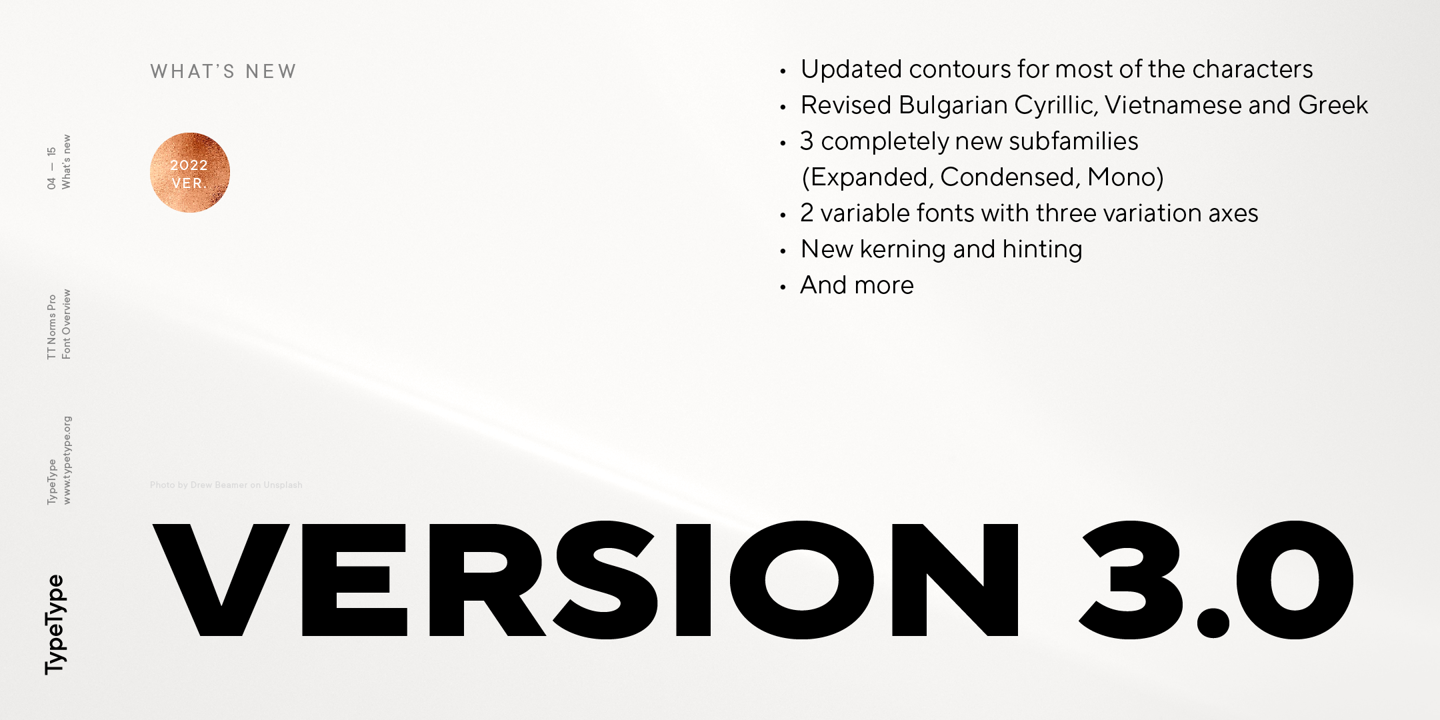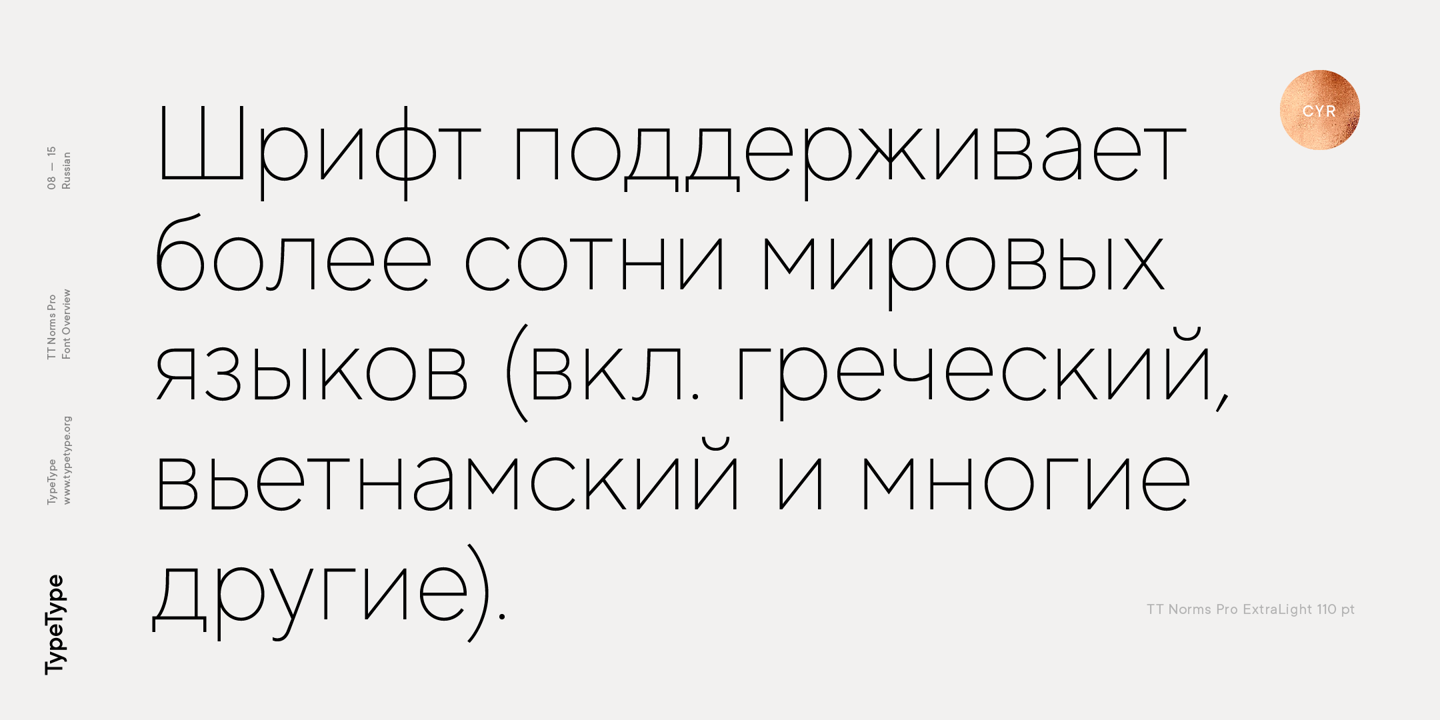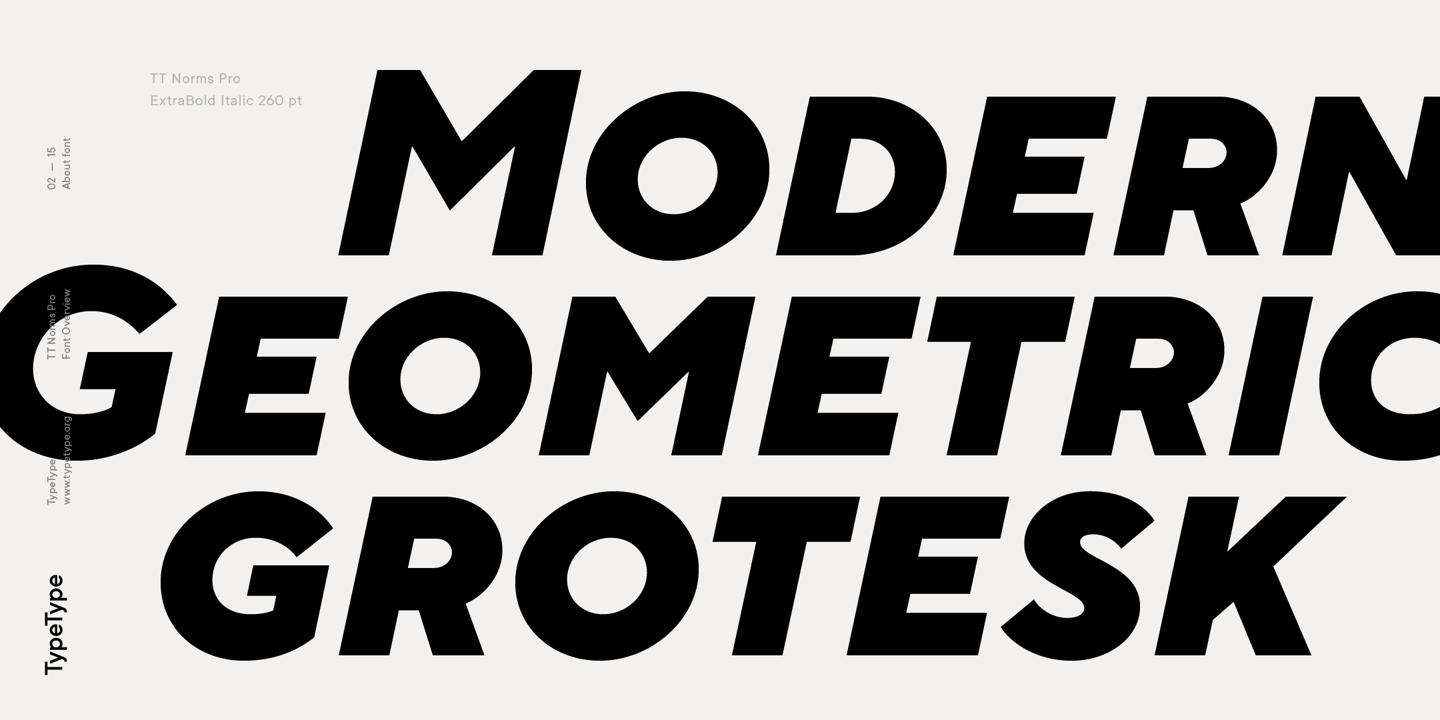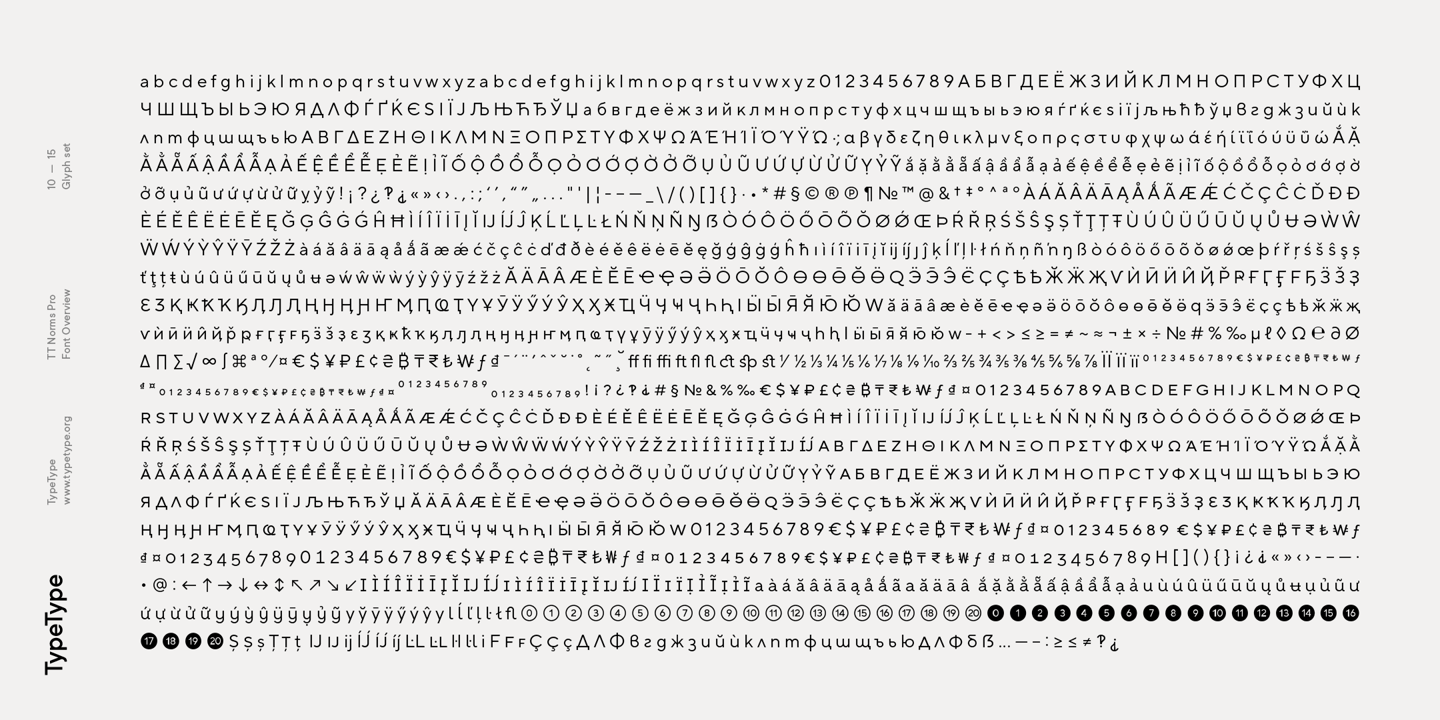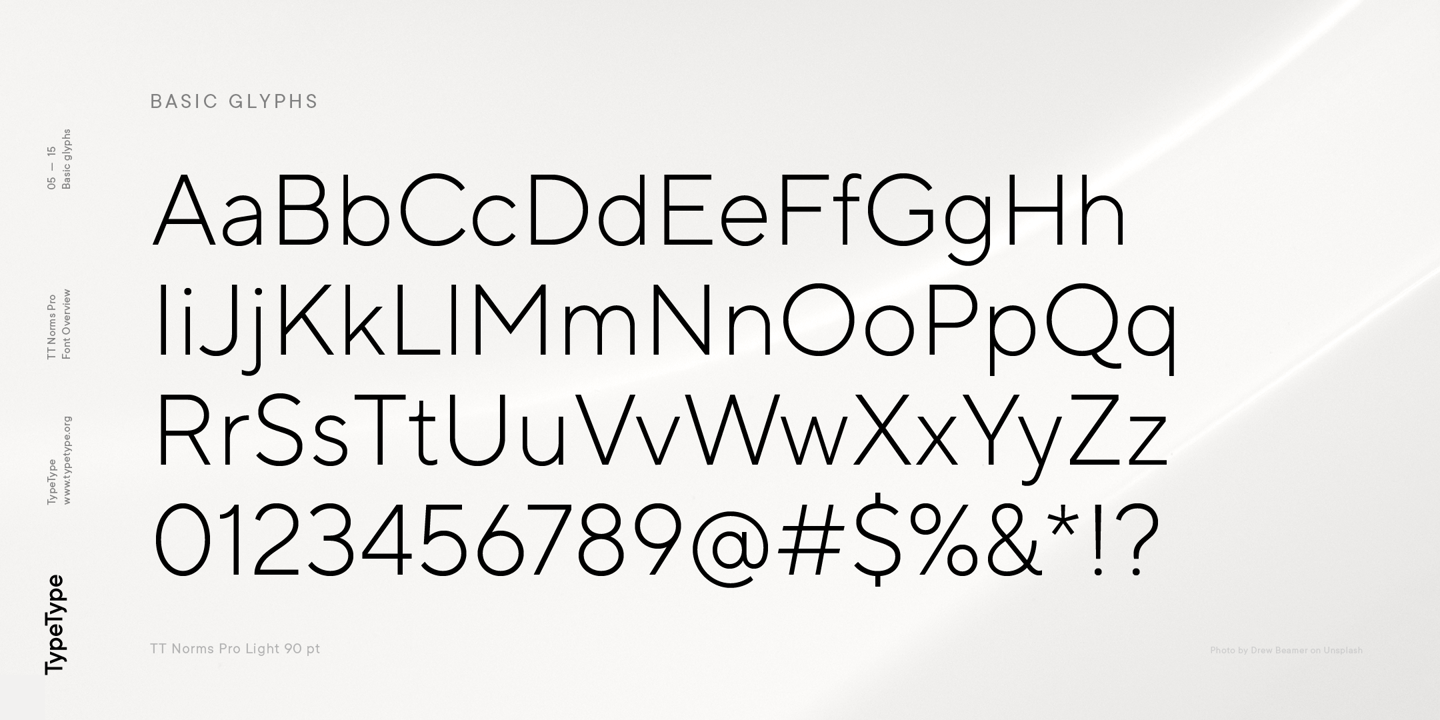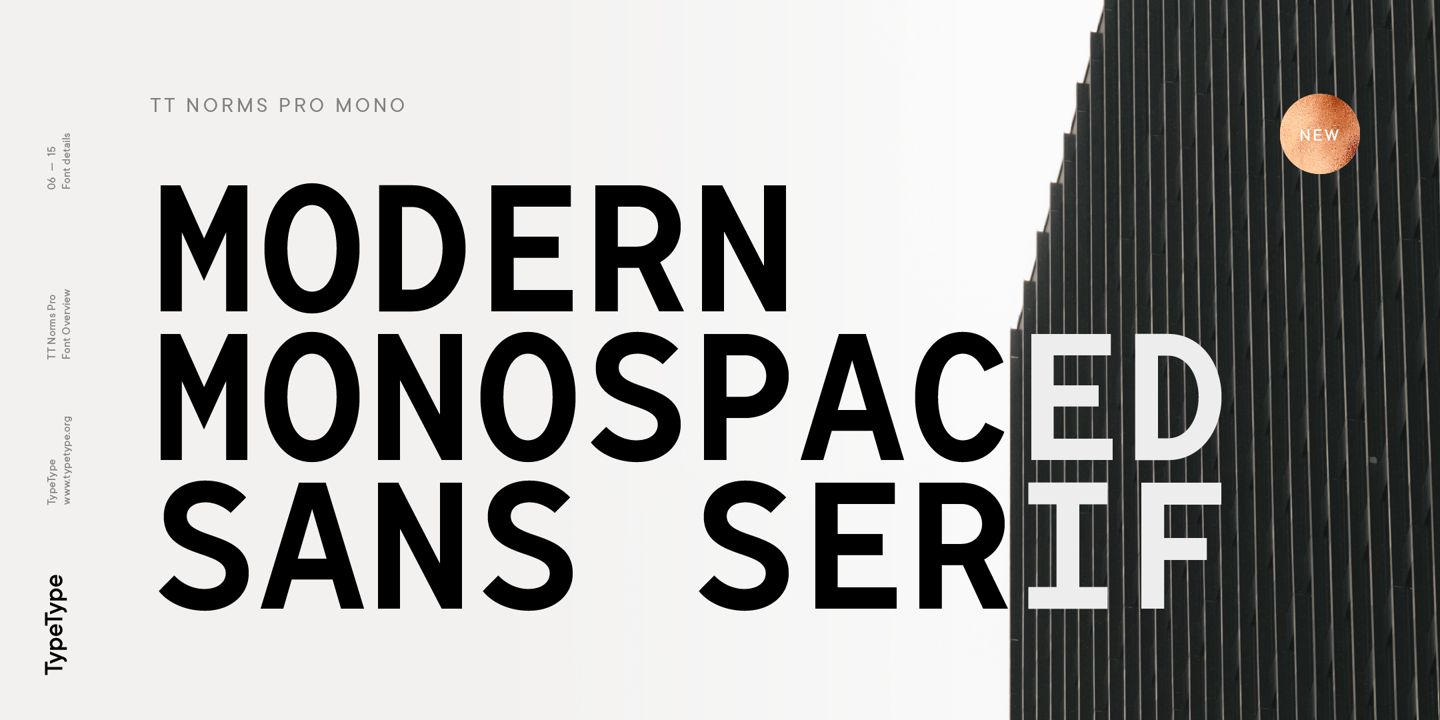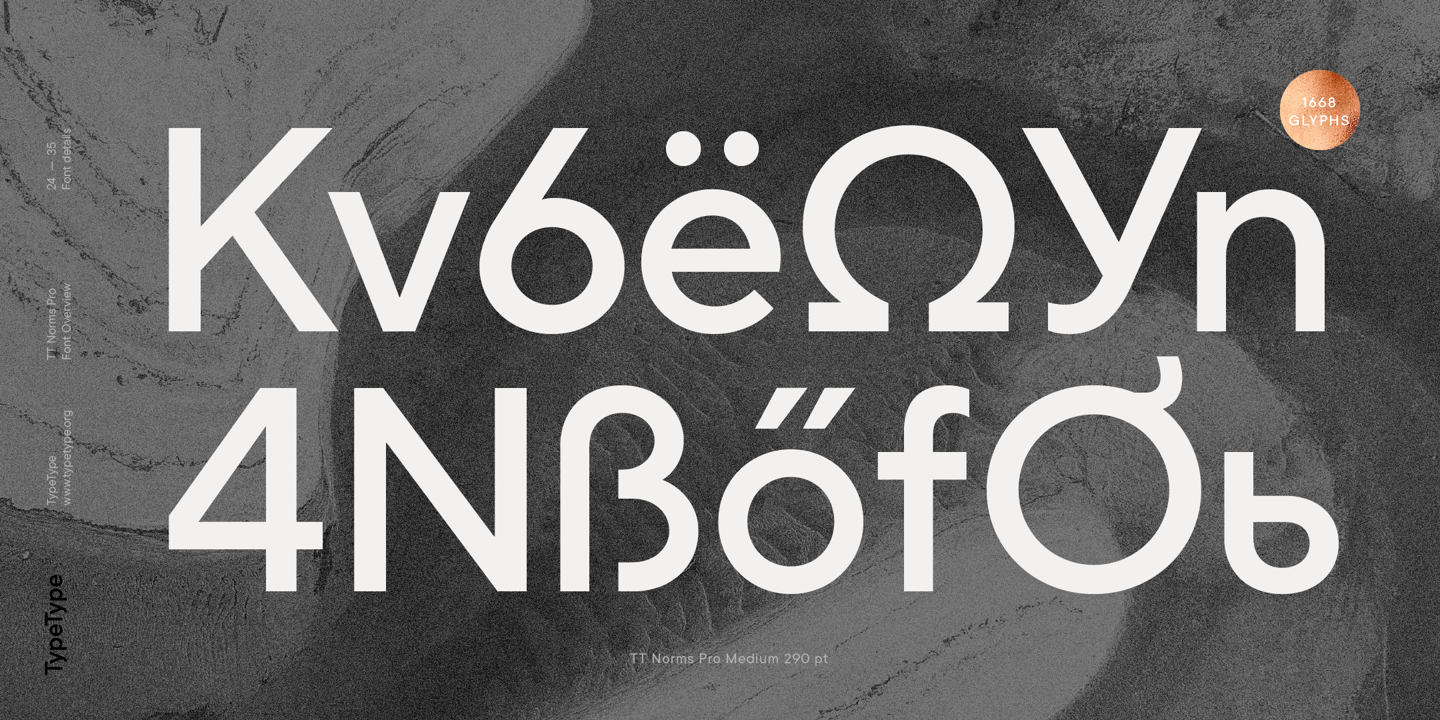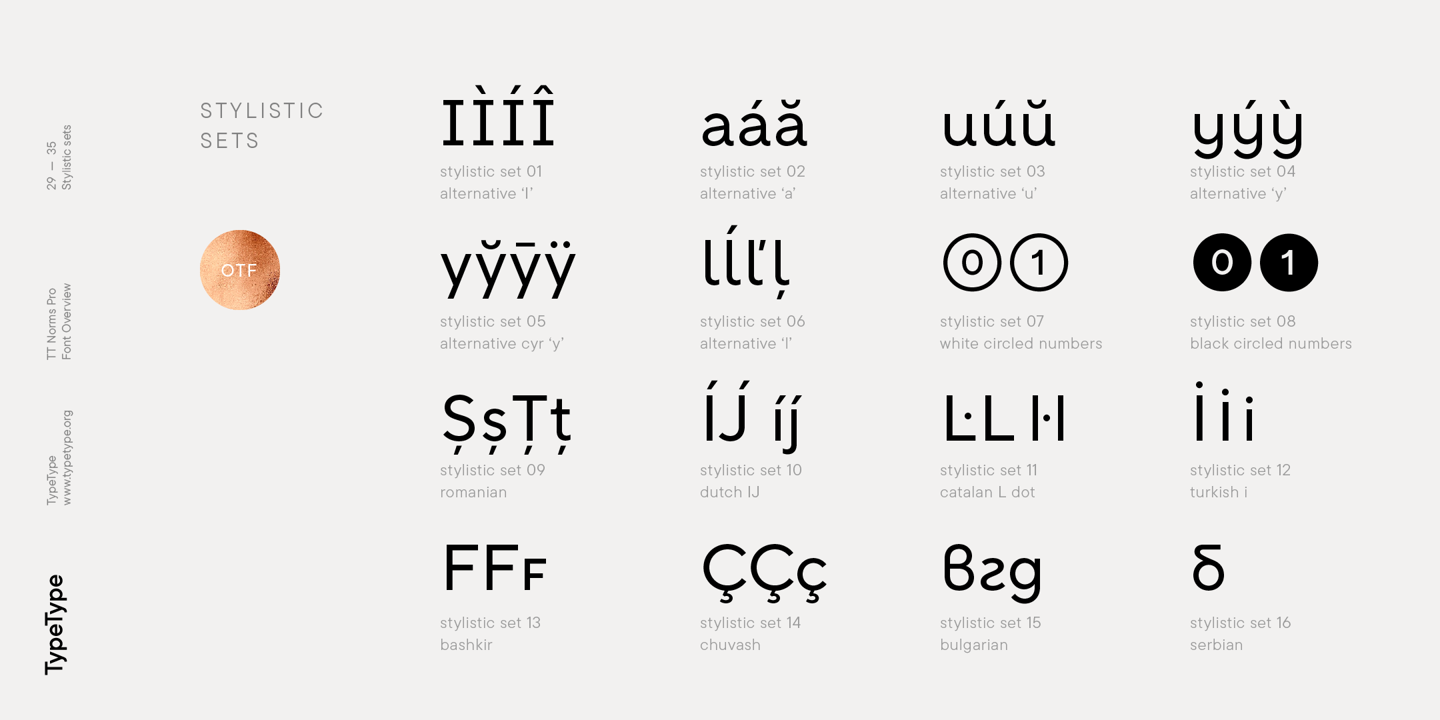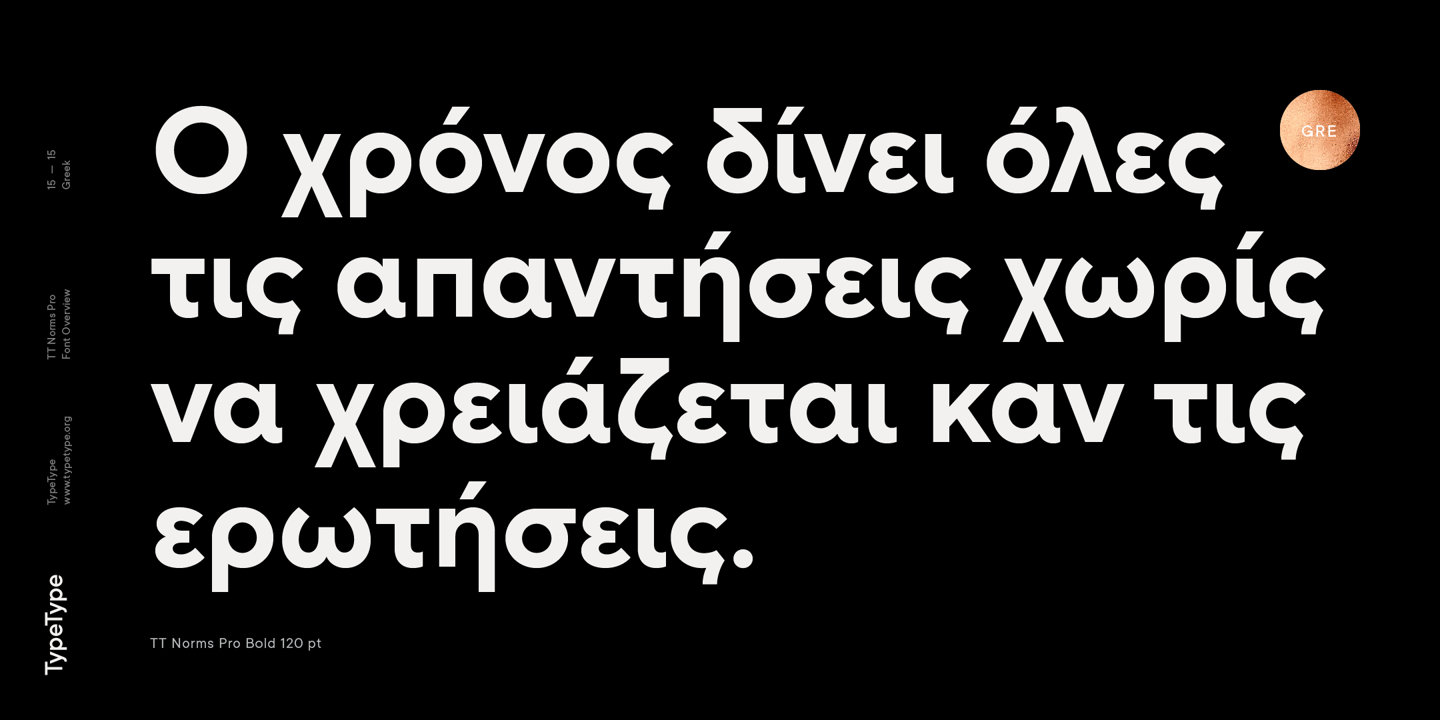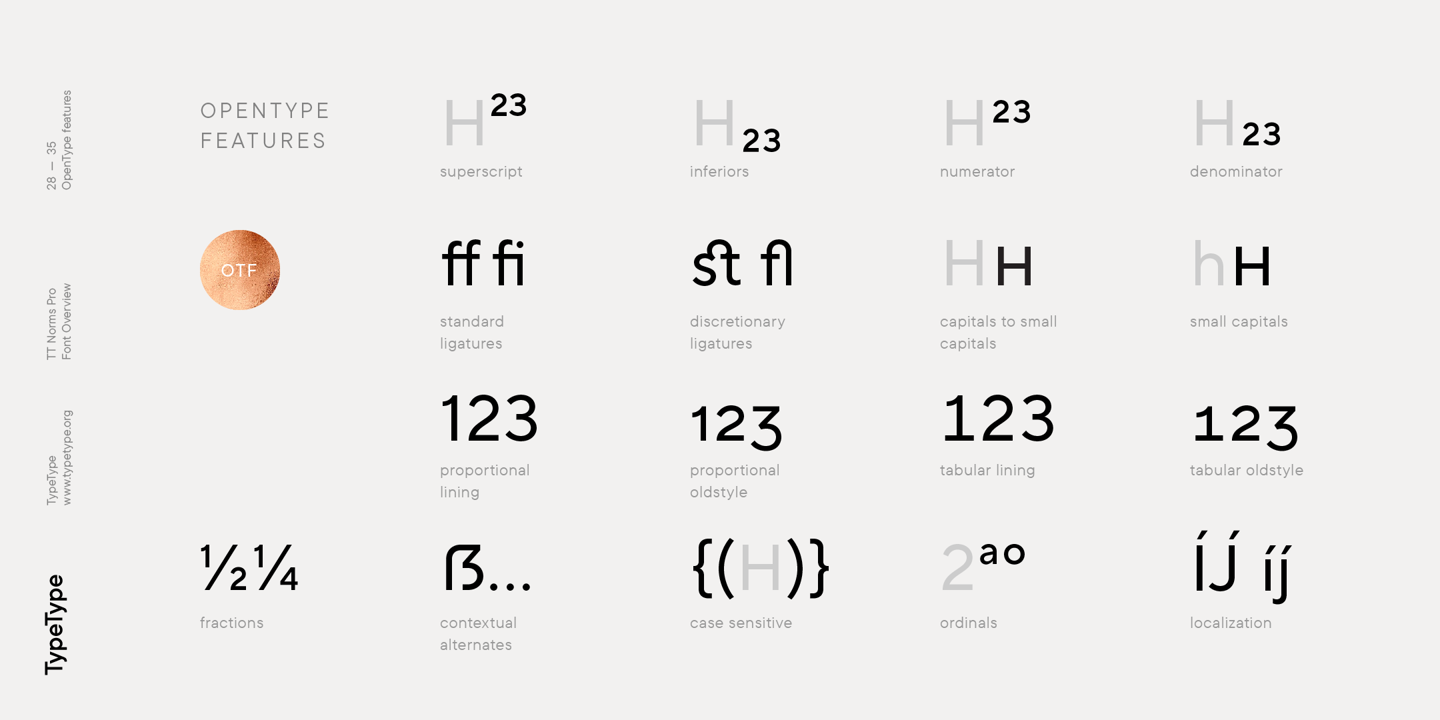
Versatile and functional sans serif for beautiful solutions.
TT Norms® Pro is TypeType's bestseller. We constantly update the font family and supplement it with new fonts so that designers have the most modern and functional font in their arsenal.
What is included in the geometric sans serif TT Norms® Pro:
• 4 widths: TT Norms® Pro with classic proportions, TT Norms® Pro Mono monospace font, TT Norms® Pro Condensed with narrower proportions and TT Norms® Pro Expanded with expanded proportions;
• 22 styles in TT Norms® Pro, TT Norms® Pro Condensed and TT Norms® Pro Expanded: Thin, ExtraLight, Light, Regular, Normal, Medium, DemiBold, Bold, ExtraBold, Black, ExtraBlack and italics duplicating them.
• 14 styles in TT Norms® Pro Mono: Thin, ExtraLight, Light, Regular, Medium, DemiBold, Bold and italics duplicating them.
• Variable font TT Norms® Pro Variable, varying along 3 axes: weight, width and slant.
• Variable font TT Norms® Pro Mono Variable, varying in weight and slant.
• 1668 glyphs in each style, including an extended set of punctuation, symbols and currencies.
• Flawless kerning and manual TrueType hinting.
TT Norms® Pro is a font that has the most extensive language support in the TypeType collection. Currently, the family includes 275+ languages, including extended Latin and Cyrillic, Bulgarian, Greek and Vietnamese.
TT Norms® Pro is easy to use due to its functionality. The font contains 37 OpenType features, including:
• a large number of ligatures;
• fractions, numerators, superscripts;
• sets of stylistic alternatives.
TT Norms® Pro is universal and suitable for any area: a modern streaming service or a banking system, a stylish clothing brand or the automotive industry.
Equally convenient for use on the web and in print.
In addition to the TT Norms® Pro family, we have created the TT Norms® Pro Serif. The fonts blend perfectly with each other, making up a font pair.
The TT Norms® Pro sans serif has already become the signature font of brands such as Cartoon Network, Intercom, Inc., Sartorius AG, CSN, CBSN, Shieldex and many more.